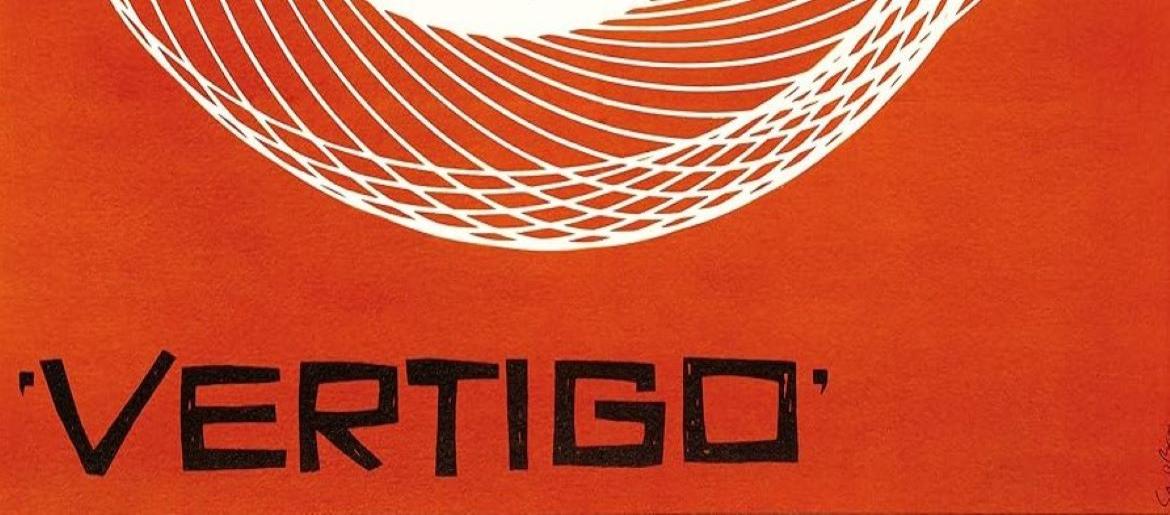
Vertigo Font
The Vertigo font is instantly tied to Alfred Hitchcock’s legendary 1958 thriller, a film that redefined suspense and visual storytelling. The movie’s title sequence, designed by Saul Bass, is one of the most iconic in cinema history, and the typography plays a major role in that hypnotic effect. Bold, geometric lettering combined with swirling optical illusions creates a sense of unease and fascination—perfectly reflecting the themes of obsession and psychological tension in the film.
When looking for fonts that echo the style of the Vertigo font, designers often turn to bold sans-serif typefaces with a modernist edge, with fonts such as Trade Gothic Bold, Helvetica Bold, or custom geometric styles capturing similar intensity.
About Vertigo
Vertigo is a 1958 psychological thriller directed by Alfred Hitchcock, based on the French novel “D’entre les morts” by Pierre Boileau and Thomas Narcejac. Starring James Stewart as a retired detective suffering from acrophobia and Kim Novak in a dual role, the film follows an obsessive investigation involving deception, identity, and tragic romance in San Francisco. Featuring innovative camera techniques including the famous “dolly zoom” effect, Bernard Herrmann’s haunting score, and Saul Bass’s mesmerizing title sequence, Vertigo initially received mixed reviews but is now widely considered Hitchcock’s masterpiece and one of the greatest films ever made, exploring themes of obsession, manipulation, and loss.